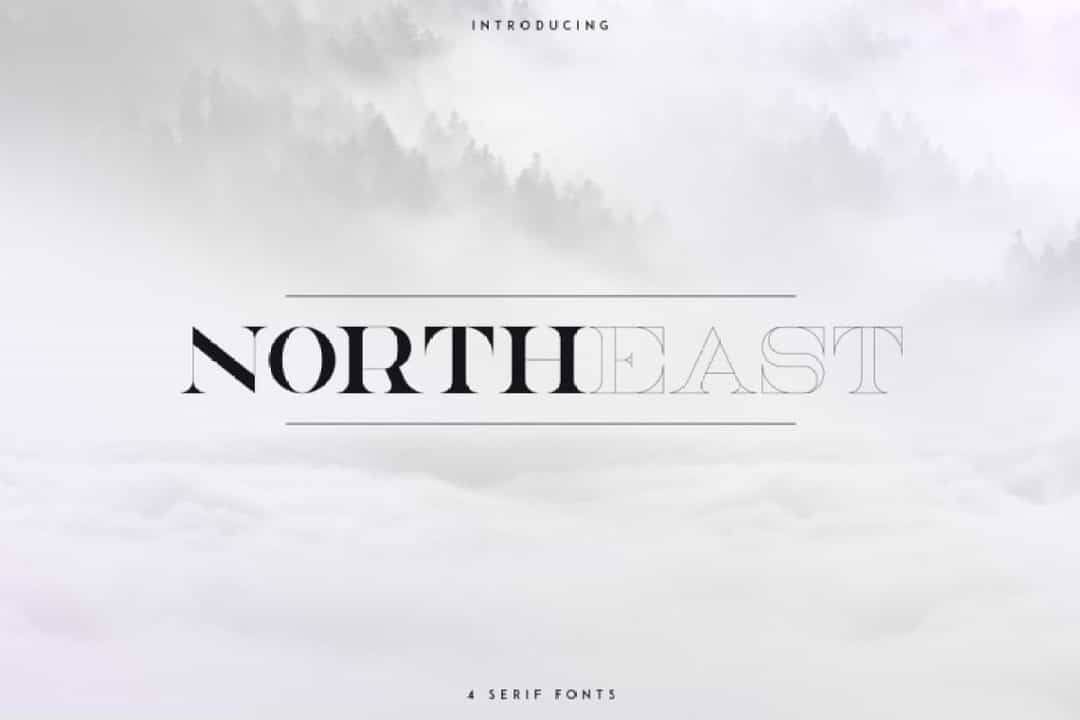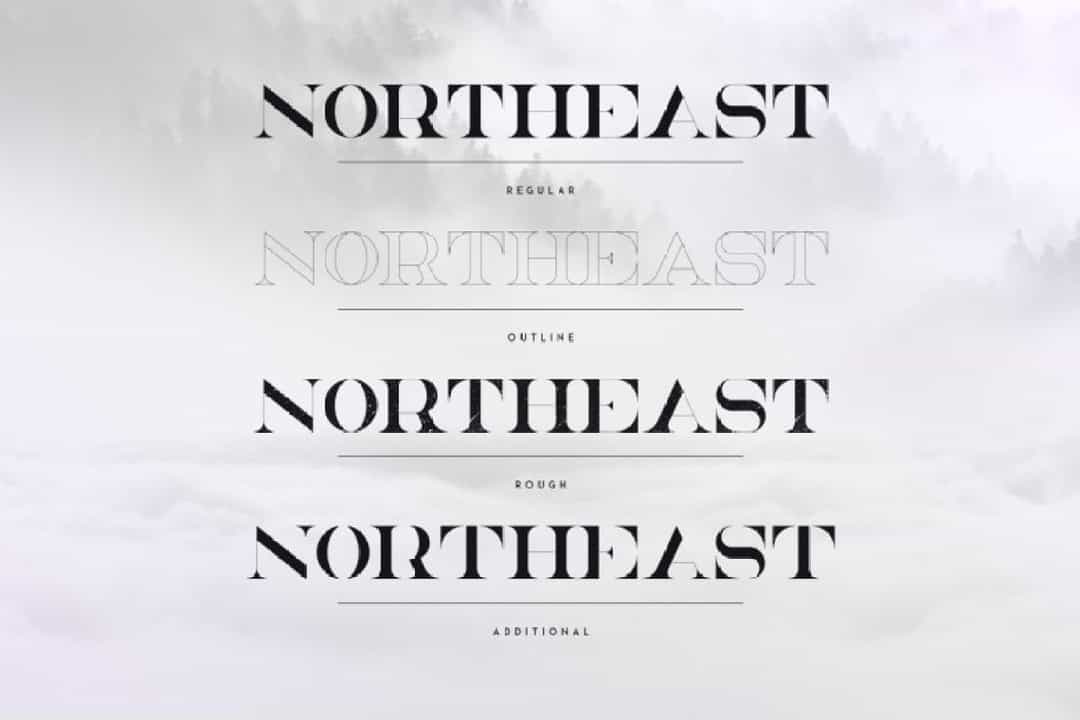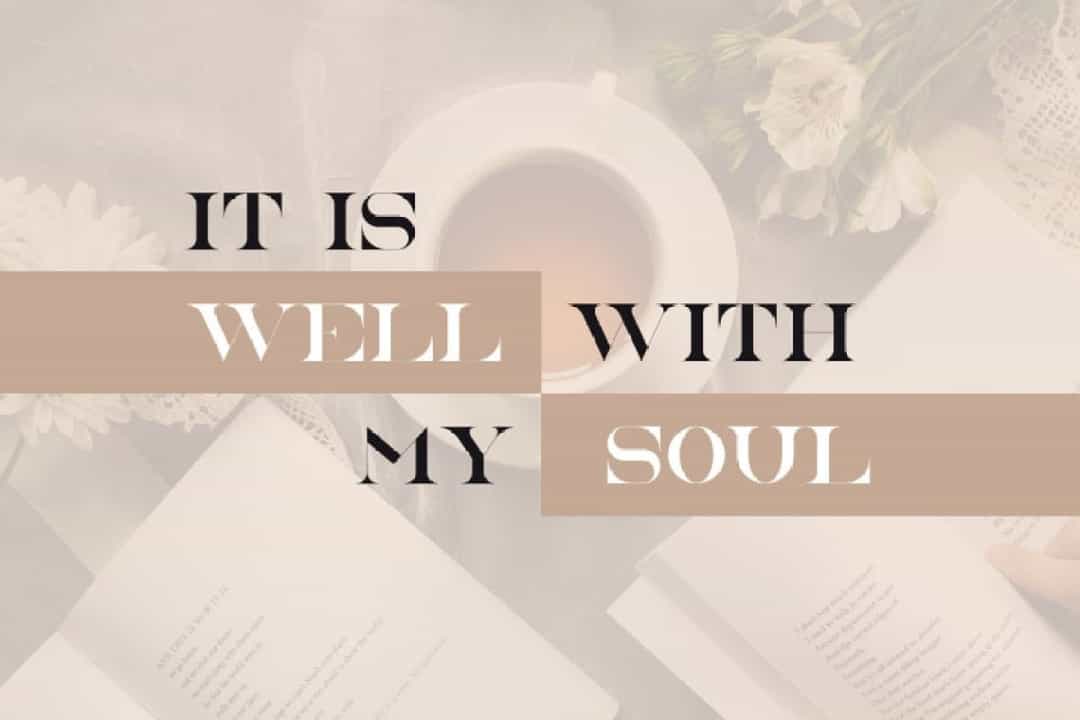
Introducing NorthEast Font. NorthEast is the fashionable, bold typeface with 4 fonts and multilingual support. It is a font that can be used in both large and small sizes with the same effect. NorthEast is a great choice for branding projects, home-ware designs, product packaging, magazine headers – or just as a stylish text overlay to any background image.